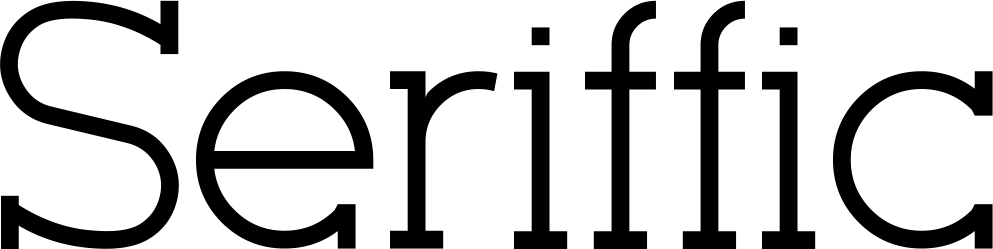
Seriffic Font
Seriffic is a neat, subtle, decent font that belongs to the slab serif font category. It makes a perfect fit for branding matters as well as making logotypes, posters, product packaging, apps, and more. You can find more…
Seriffic is a neat, subtle, decent font that belongs to the slab serif font category. It makes a perfect fit for branding matters as well as making logotypes, posters, product packaging, apps, and more. You can find more fonts of this and other categories in our vast library. Care to take a look?